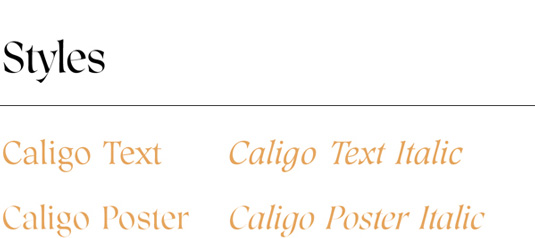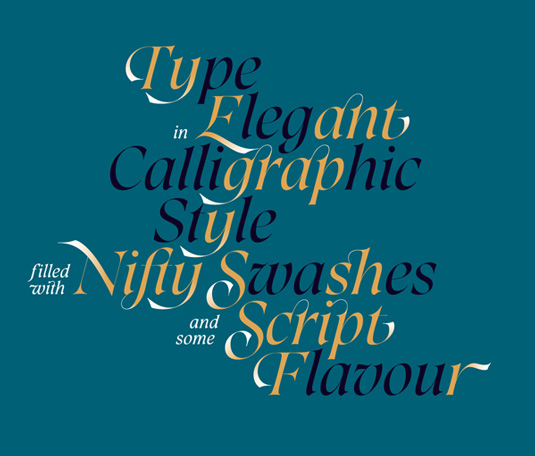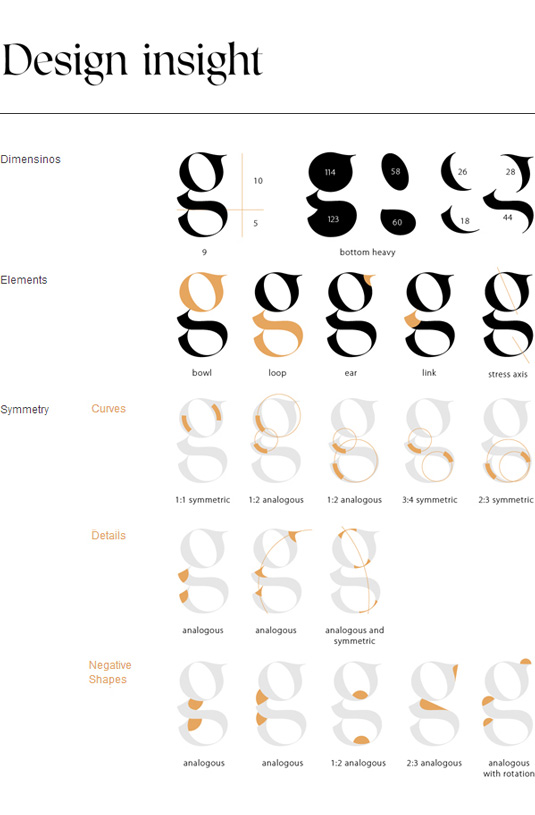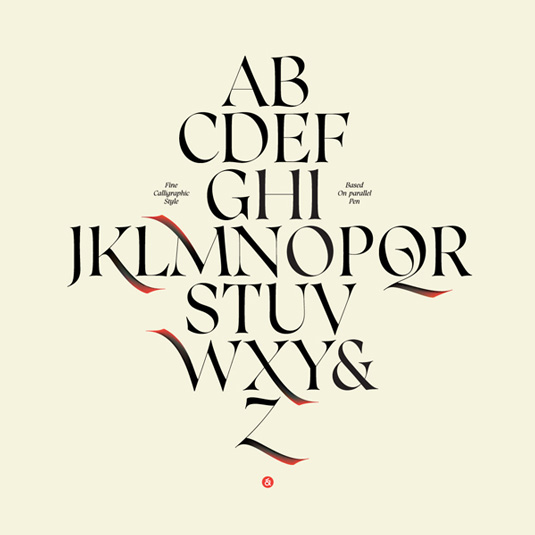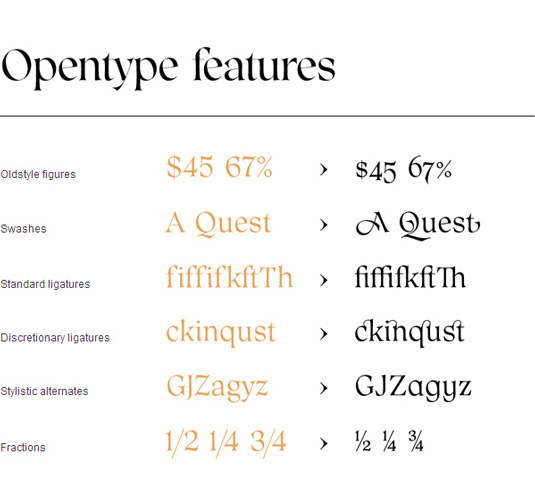
Font of the day: Caligo
Every day we showcase the best fonts on the web. Today it's Caligo by Áron Jancsó.
Caligo by Áron Jancsó
A self-confessed type addict, Áron Jancsó is the graphic designer behind today's font of choice. "Caligo is an Opentype typeface based on calligraphy done with a parallel pen," he says. "It's classic and elegant with a modern twist, featuring flared serifs, lots of ligatures and swashes.
"It has four styles: poster for large scale, text for small sizes and the corresponding italics. It's great for book cover and signage design where beauty and tradition are important. The font can be used for fashion, novels, magazines, and much more."